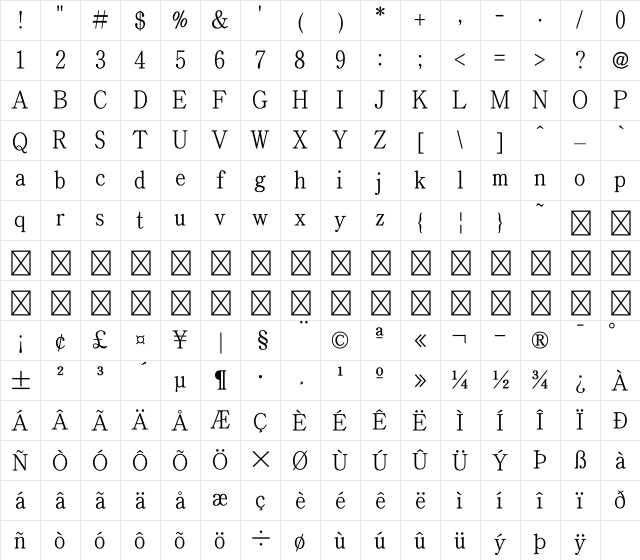
Complete RA HanaRenge Std Md glyph index. Displaying only characters natively supported by RA HanaRenge Std Md font.
RA HanaRenge Std is a composed and adaptable typeface that performs quietly and consistently across a wide range of design contexts.
Pro Tip: Use RA HanaRenge Std in both headline and body roles to test its range before committing to a single application.
Who designed the RA HanaRenge Std Md font?